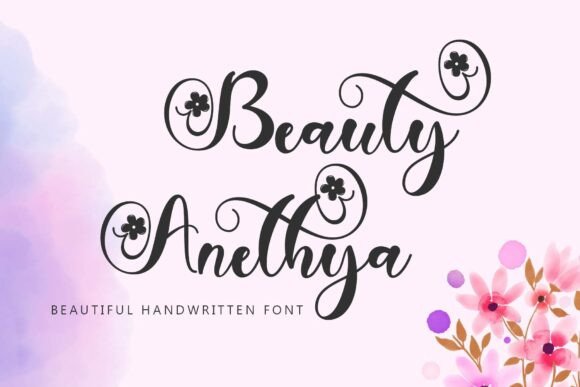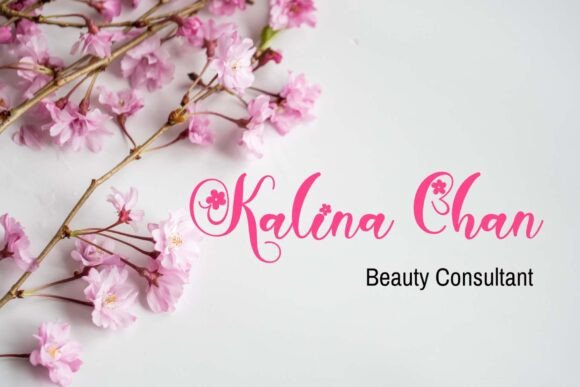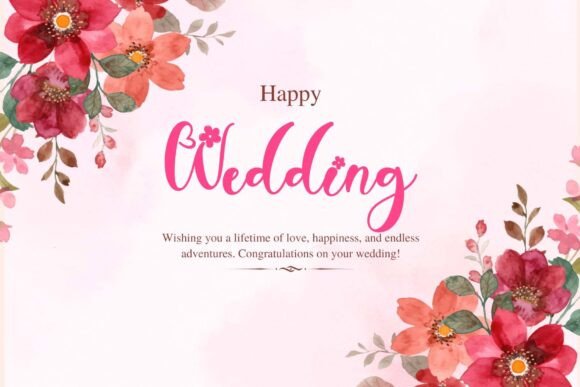
Beauty Anethya Font
About the Beauty Anethya Font
Experience the unique personality of Beauty Anethya Font, a font designed for impact. “Beauty Anethya” is a beautiful and elegant handwritten font. This font is equipped with uppercase, lowercase, numerals, punctuations and multilingual support. It is very suitable for weddings, business branding, stickers, spring, summer, holidays, invitations, banners, mother’s day and others.
Beauty Anethya Font Usage Examples
Beauty Anethya Font Example